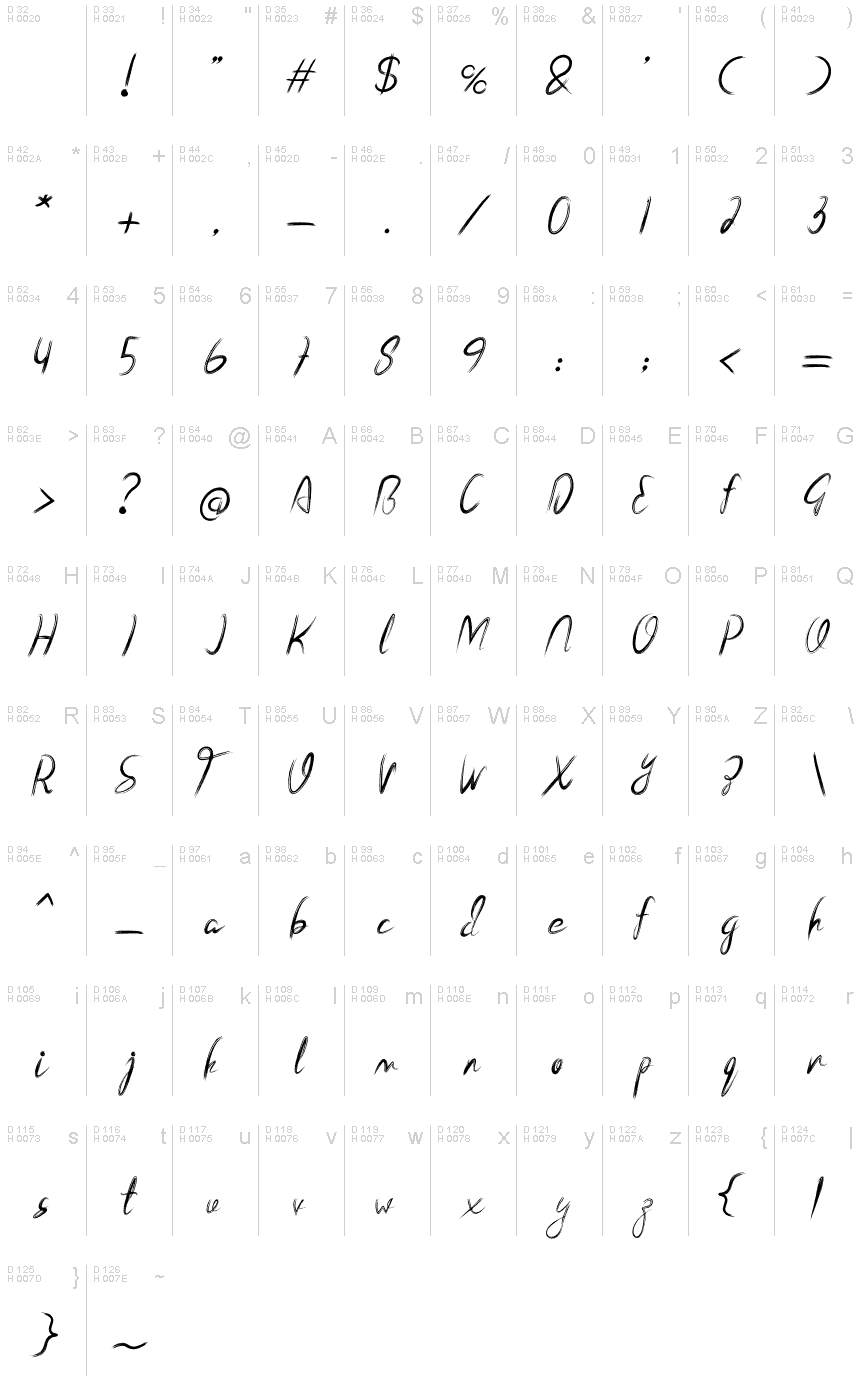
Twilight Italic
Twilight Italic by Design Vector10 is a stunning brush font that adds a touch of elegance to any design. Its semi-light weight and semi-condensed width make it perfect for creating titles, headlines, and logos that need to grab attention while remaining legible. The italic style adds a sense of movement and flow, making it suitable for anything from fashion magazines to food blogs. Use Twilight Italic for your next project and watch as it elevates your design to new heights!